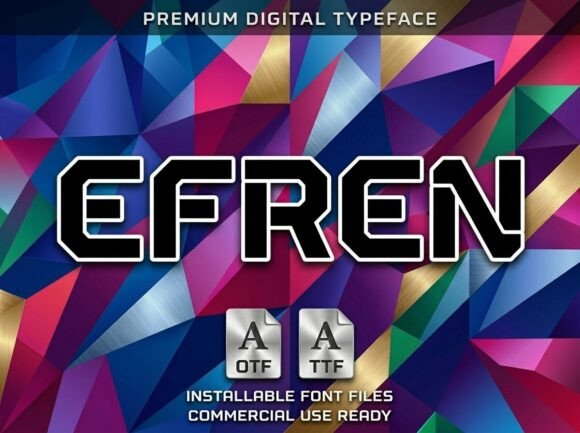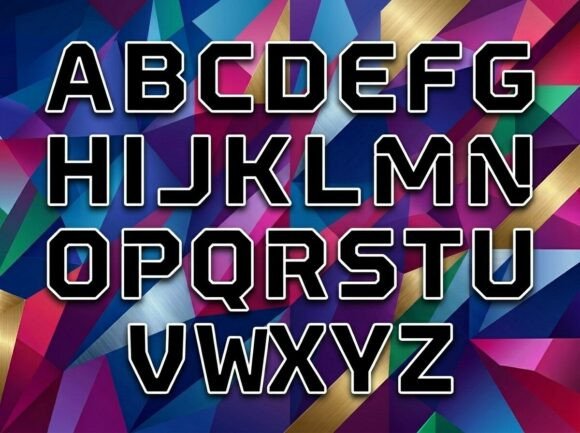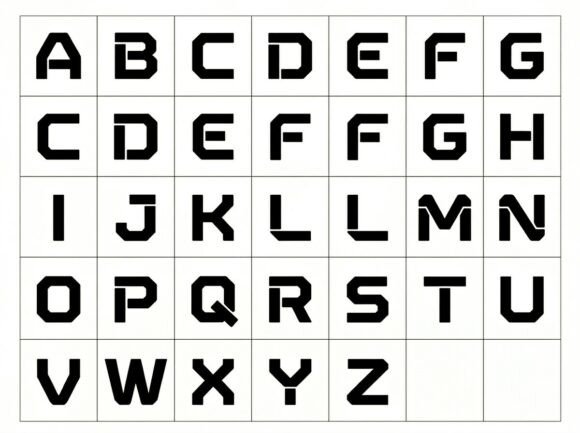
Introducing Efren Font: The Ultimate Display Font for Creative Minds
Are you tired of using the same old fonts for your creative projects? Look no further than Efren Font, a stunning decorative display font that’s designed to be the center of attention. With its unique artistic elements and strong visual personality, this font is perfect for creators who want to break away from the ordinary and make a statement.
What Makes Efren Font So Special?
Efren Font is a versatile font that’s perfect for a variety of creative projects, including bold headlines, artistic logos, and creative packaging. Its unique design elements and strong visual personality make it an ideal choice for designers and crafters who want to add a touch of elegance and sophistication to their work.
One of the standout features of Efren Font is its ability to maintain a professional and polished finish, even when used for high-impact headlines and decorative initials. This is due to its careful design and attention to detail, making it an excellent choice for projects where you want to make a lasting impression.
Important Note: All-Caps Display Typeface
Before you make a purchase, it’s essential to note that Efren Font is an ALL-CAPS (Uppercase Only) display typeface. This means that it does not include lowercase letters, and is specifically designed for high-impact headlines, logos, and decorative initials where every letter is a work of art.
Efren Font is an excellent choice for designers and crafters who want to add a touch of elegance and sophistication to their work. Whether you’re working on a logo design, brochure, or packaging project, this font is sure to make a lasting impression.
With its unique artistic elements and strong visual personality, Efren Font is perfect for:
- Bold headlines and titles
- Artistic logos and branding
- Creative packaging and labeling
- Decorative initials and lettering
In conclusion, Efren Font is a stunning decorative display font that’s perfect for creative minds who want to break away from the ordinary. With its unique artistic elements, strong visual personality, and versatility, this font is an excellent choice for designers and crafters who want to add a touch of elegance and sophistication to their work.